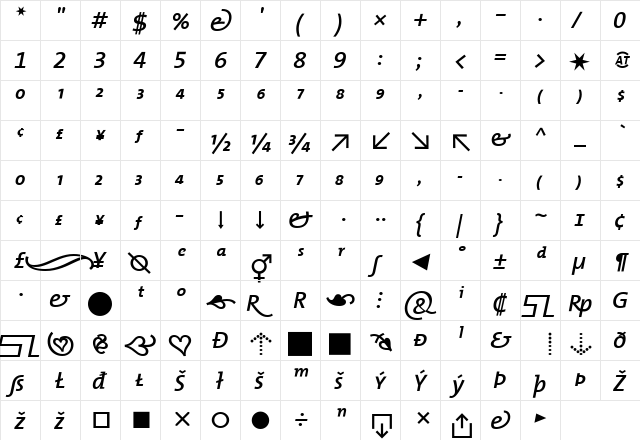
TheMixSemiBold Roman Italic Font Preview
TheMixSemiBold Roman Italic
Design Context for TheMixSemiBold Typeface
TheMixSemiBold is a composed and adaptable typeface that performs quietly and consistently across a wide range of design contexts. The slanted form adds forward momentum and visual energy. The heavy weight commands attention and anchors typographic hierarchies.